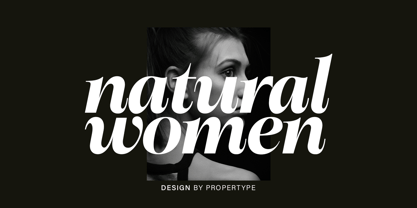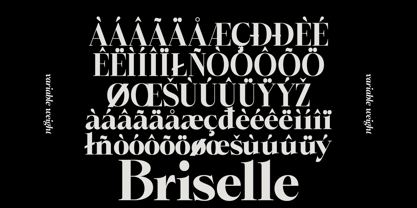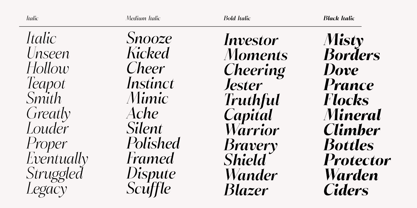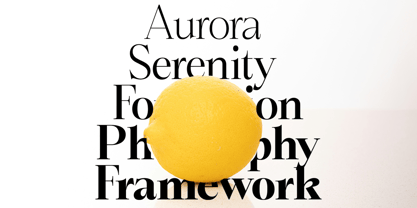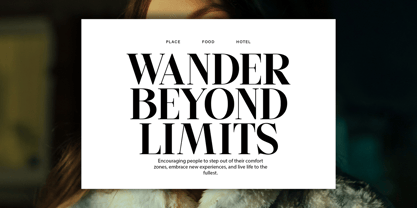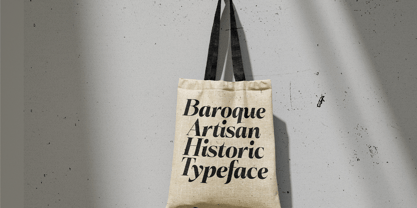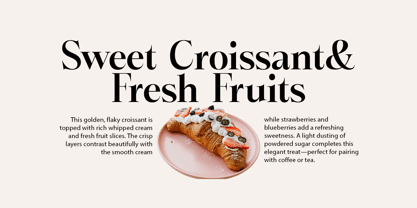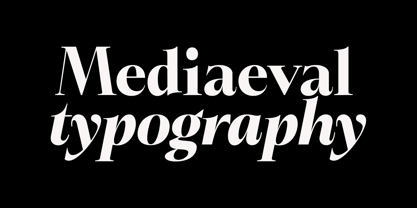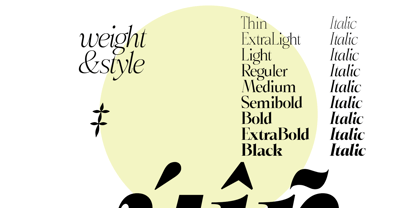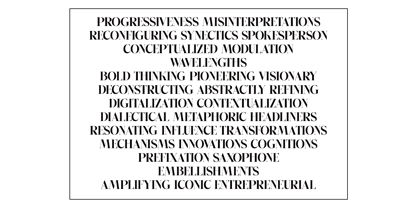
Bigdora
von Propertype
Die Schriftfamilie Bigdora wurde von Nadia Auliana entworfen und von Propertype veröffentlicht. Bigdora enthält 18 Stile und Familienpaketoptionen.
Bigdora Font is a high contrast typeface inspired by transitional and contemporary typefaces. This typeface expands its usage by providing thicknesses ranging from thin to black. Natural curves, bulging stems, and slants, become more prominent as the letter thickness increases. While thinner thicknesses have lower contrast and optical correction to create a warm and soft look. Featuring beautiful italics, excellent weights, and extensive language support.
Bigdora Font excels in display settings such as headlines, titles, branding projects, Logo designs, packaging, magazine headlines, advertisements, short or long texts.
Bigdora Text also comes with 18 Variable versions to make it easy for designers to explore and refine beautiful designs, revealing many visual nuances and hidden secrets.
Designer: Nadia Auliana
Herausgeber: Propertype
Foundry: Propertype
Eigentümer des Designs: Propertype